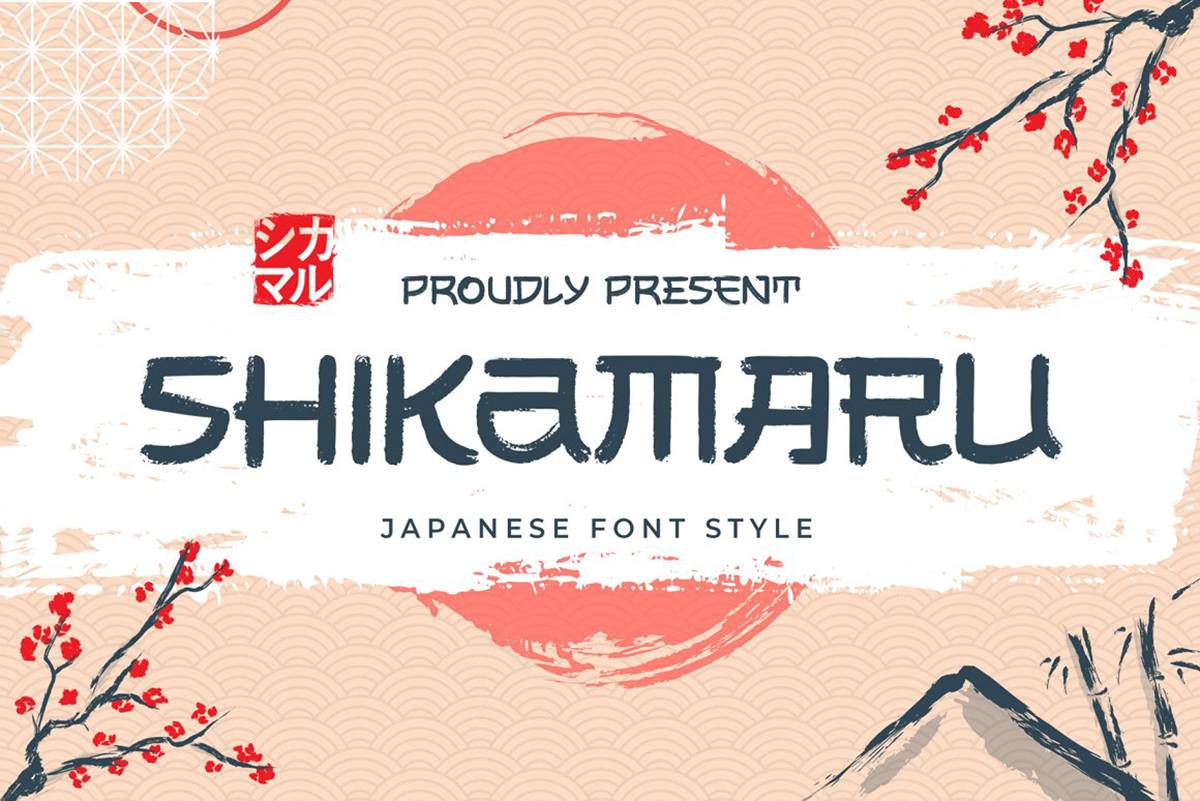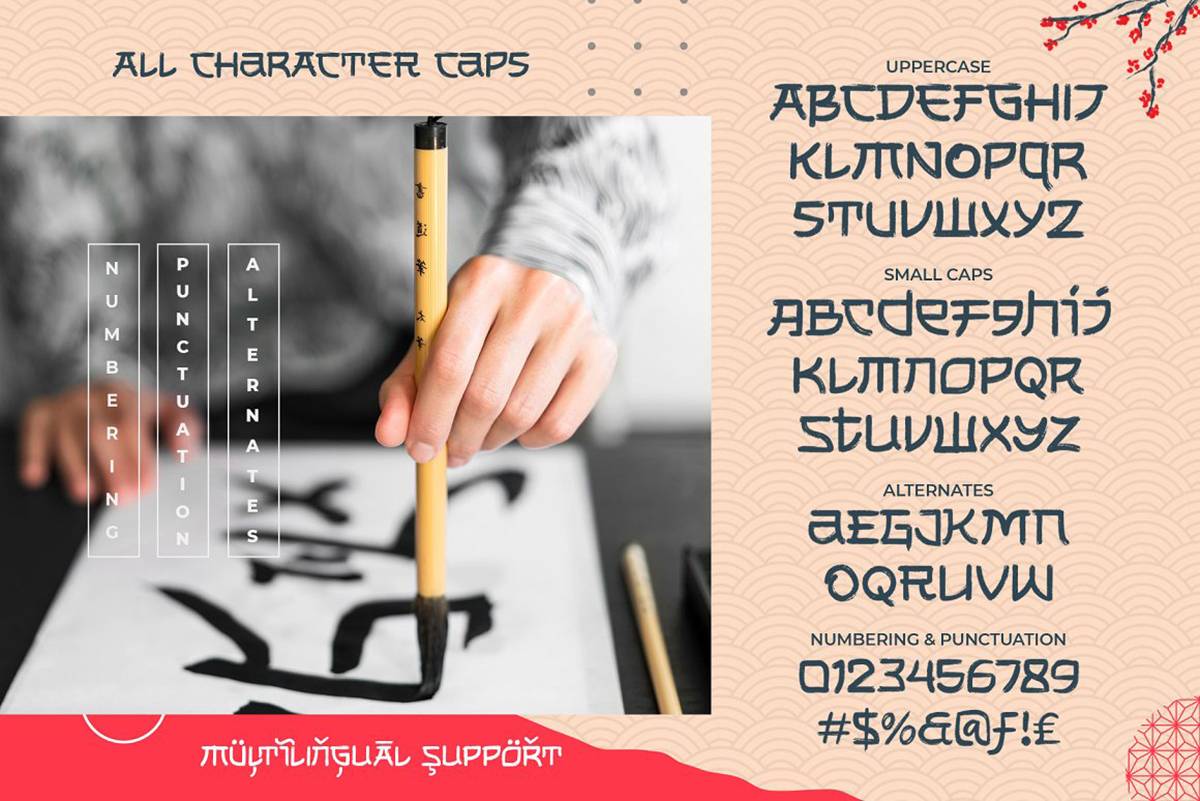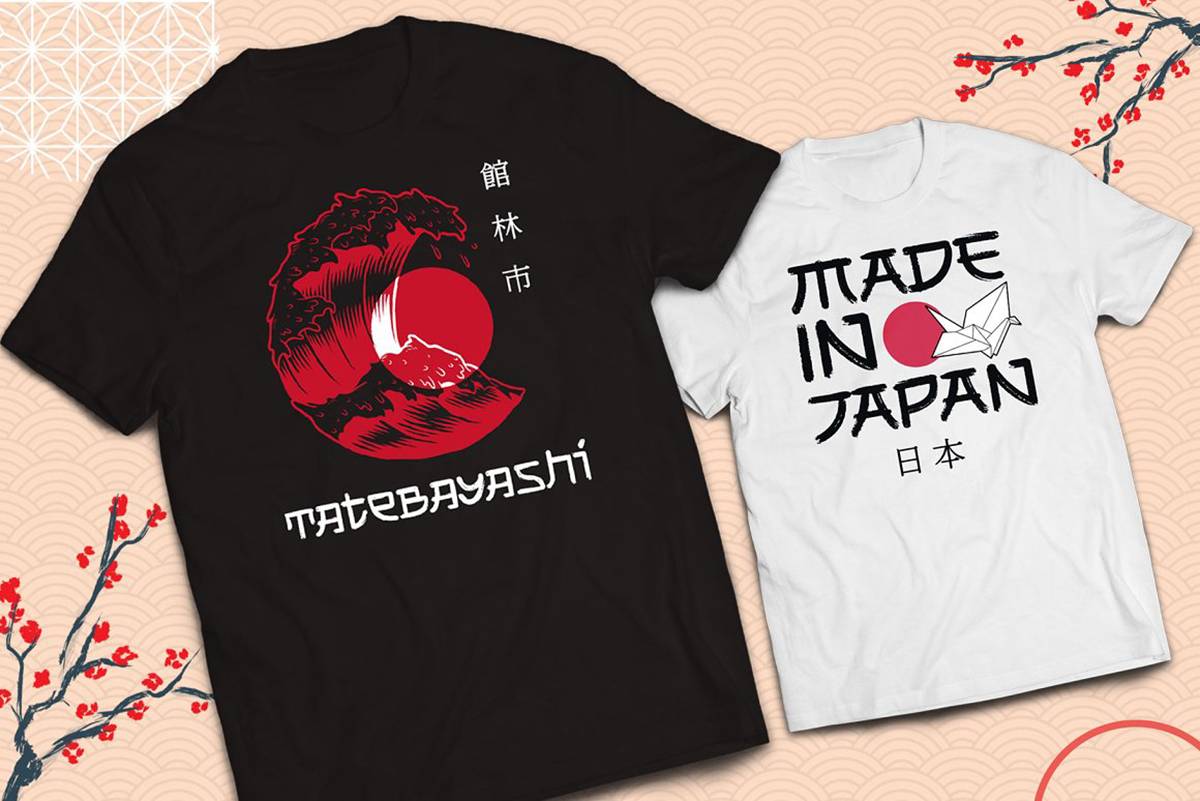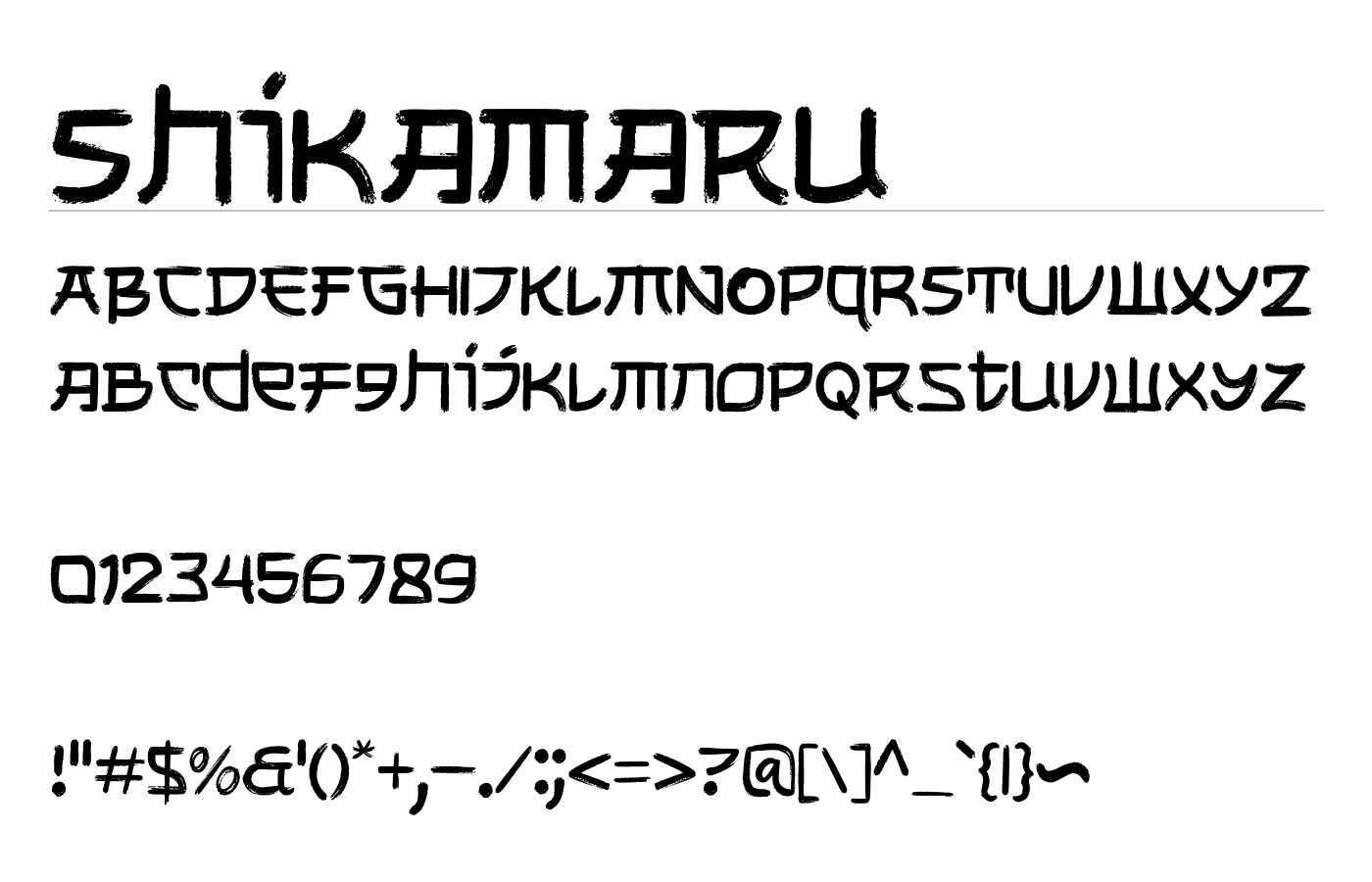
Shikamaru is a playful, hand-drawn sans serif font with a slightly rough texture that gives it an organic, brush-like feel. Its uppercase and lowercase letters share an energetic, informal style with unique letter shapes that make it perfect for creative projects, posters, and branding that aim to convey a casual, artistic vibe. This font works well in headlines and display uses where personality and visual interest are key.
Shikamaru Font
About Shikamaru Font